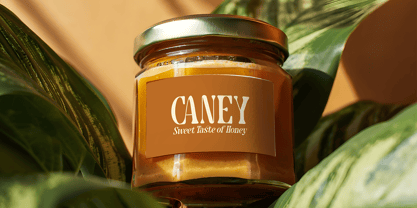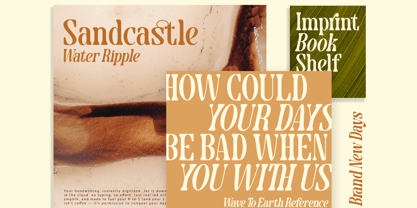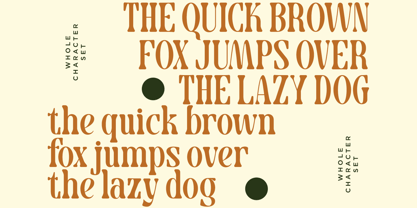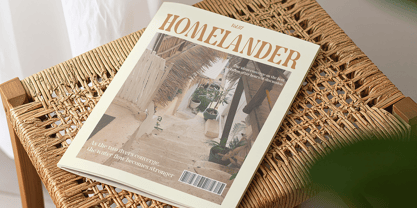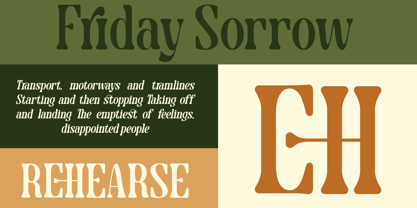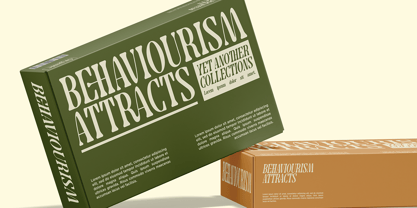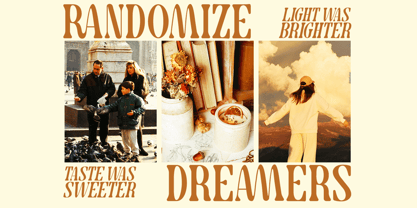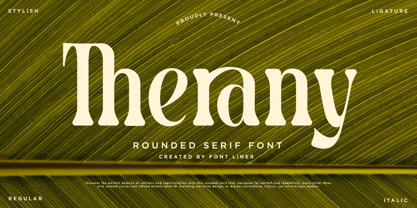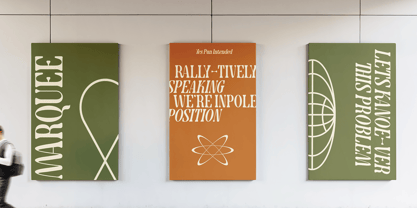
Therany
Therany is a stylish rounded serif font that blends timeless elegance with a soft, contemporary personality. Designed with smooth curves, refined serifs, and beautifully crafted ligatures, this typeface delivers a warm yet sophisticated appearance that stands out across modern branding projects. Its balanced proportions and graceful letterforms create a luxurious visual rhythm, making every word feel polished and memorable.
Perfect for fashion brands, beauty products, premium packaging, editorial layouts, wedding stationery, logo design, and high-end marketing materials, Therany offers exceptional versatility. The rounded serif construction provides excellent readability while maintaining a distinctive designer aesthetic that captures attention in both print and digital environments.
Therany can use luxury brand identity, magazine headline, social media campaign, or elegant website typography, Therany brings a unique combination of softness, class, and professionalism. The stylish ligatures and premium details help designers achieve a refined, upscale look with minimal effort, making it an essential font for modern creative projects.
• Regular and Italic Style
• Stylistic Ligatures
• Uppercase and Lowercase
• Number, Symbol, and Punctuation
• Multilingual Support